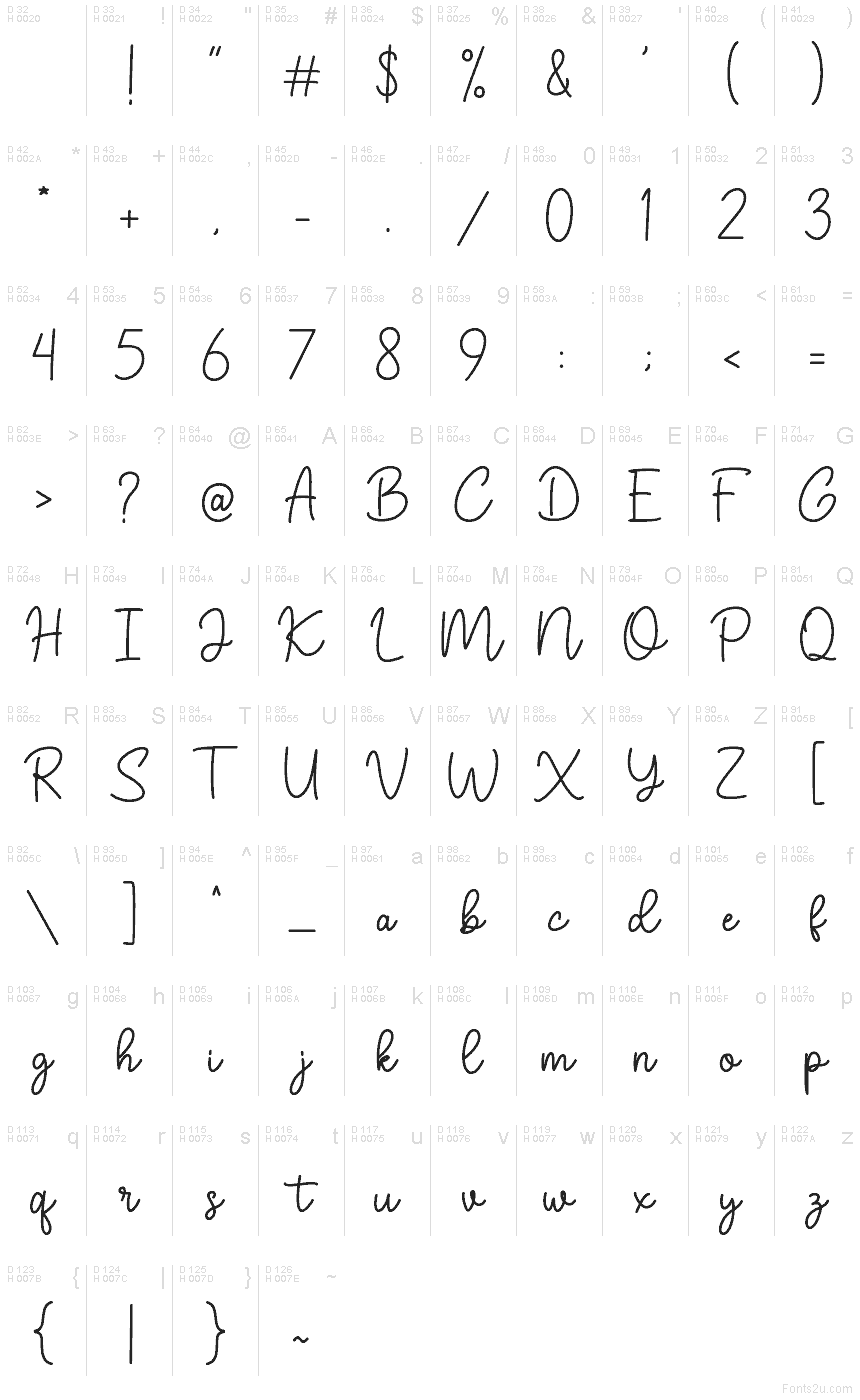
Braniella
Braniella font is a handwritten font designed by Aruna Type. It uses an elegant flowing style with a light weight. Romantic and modern, Its script letters reflect a personal touch through beautiful curves and connected letters. A rich mix of stylish lines makes each word stand out when using this awesome free handwritten font.
Use Braniella font in cards, decorative posters, packaging design, printed invitations, website imagery and titles, social media posts, journal name design, headlines and sub-headlines for books or magazines, artsy projects like quote images etc.